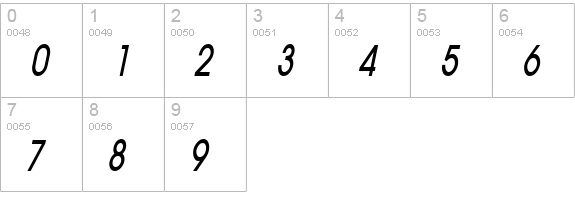
Atilla Thin BoldItalic is a delicate, low-contrast variant in the Atilla typeface family \xE2\x80\x94 well suited to fashion editorial, minimal branding, and high-contrast display.
Introducing Atilla Thin BoldItalic, a sleek and stylish font that exudes modern elegance and sophistication. With its bold yet slender letterforms and distinctive italic design, Atilla Thin BoldItalic is perfect for making a statement in your design projects. This versatile typeface is ideal for headlines, titles, branding, and more. And the best part? Atilla Thin BoldItalic is available for free download at FontsMarket.com. You can easily add this stunning font to your collection and use it in various creative projects without breaking the bank. Don't miss out on the opportunity to enhance your designs with the unique charm of Atilla Thin BoldItalic. Download it now and elevate your typographic creations to the next level.